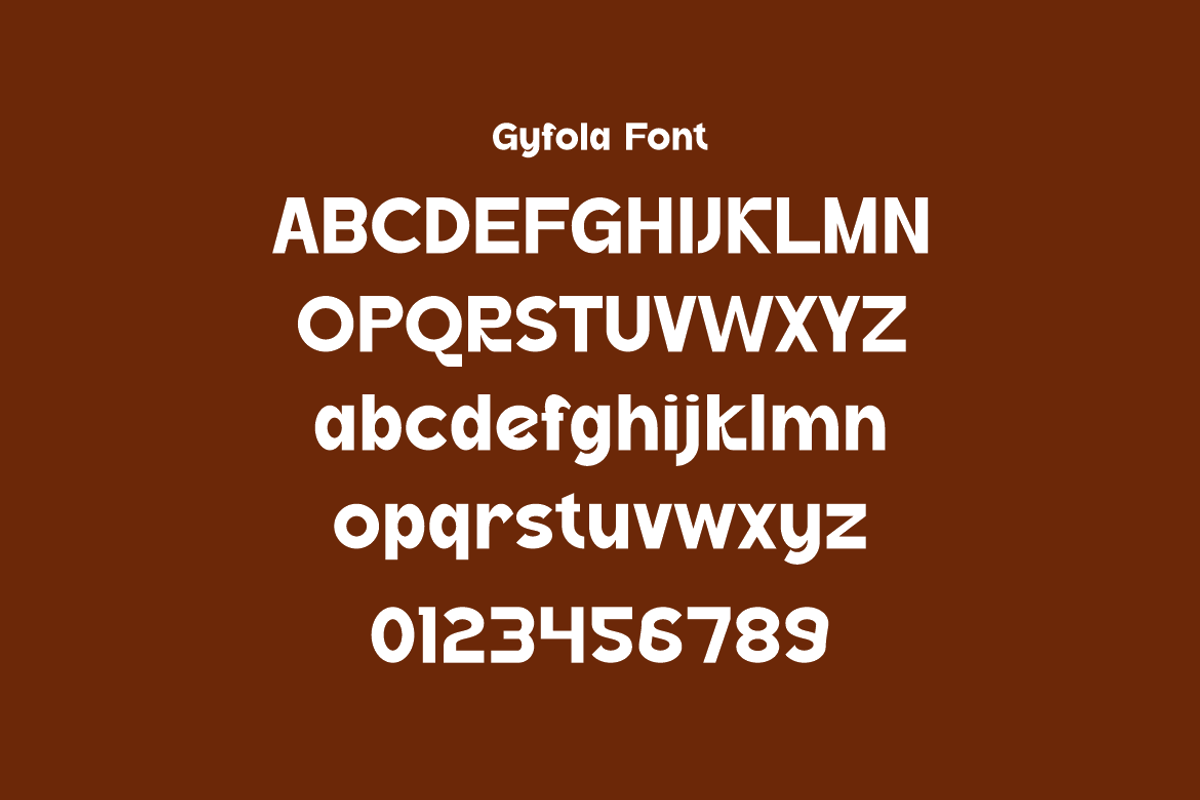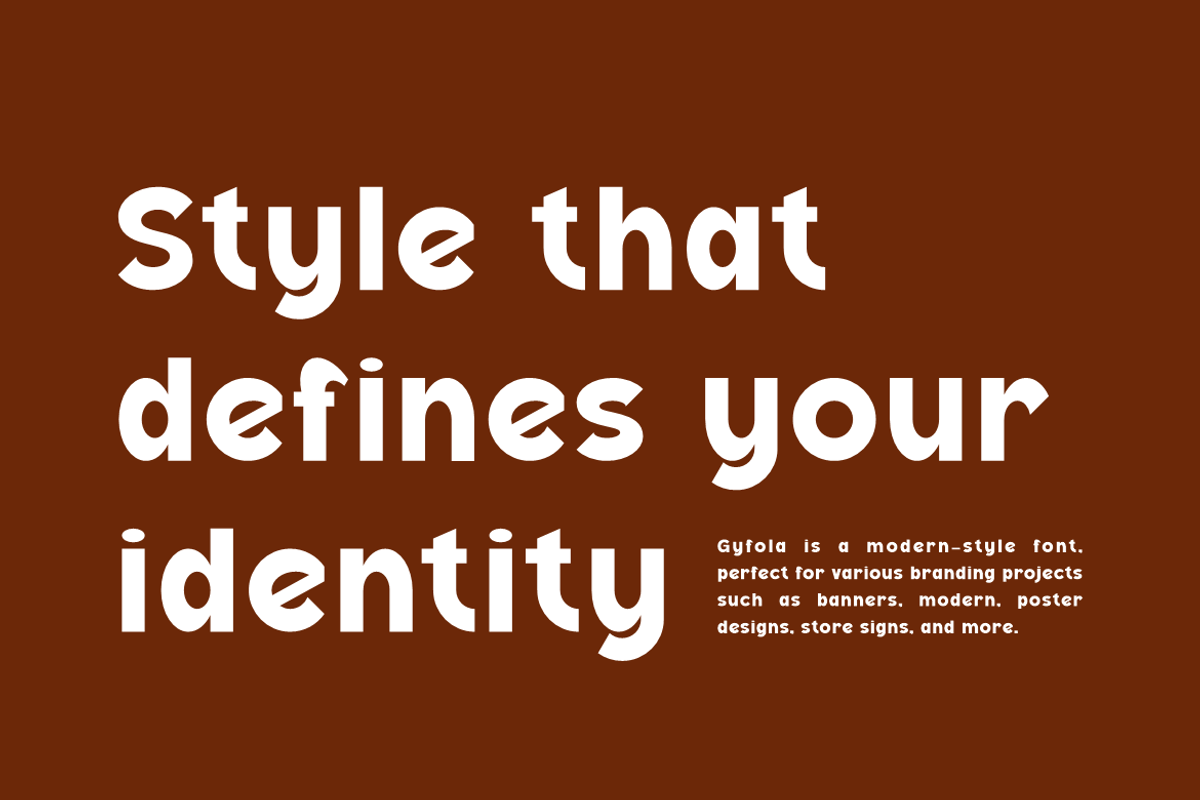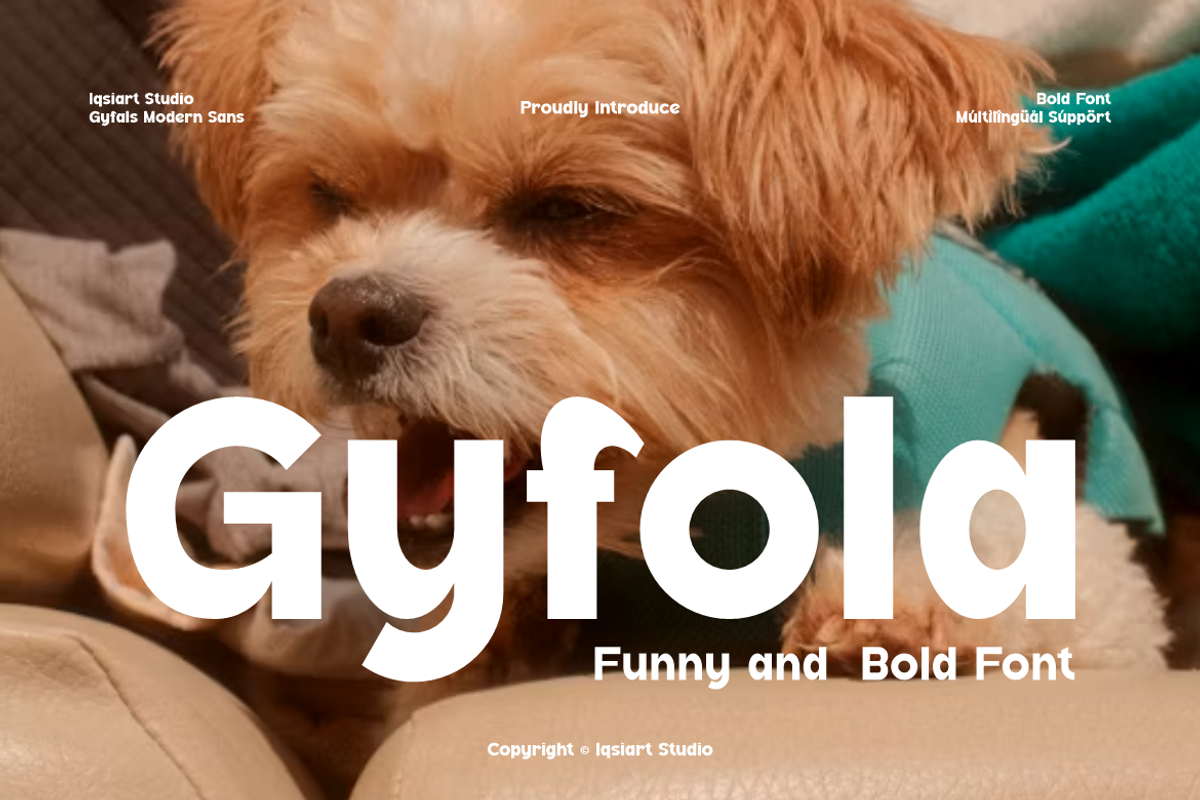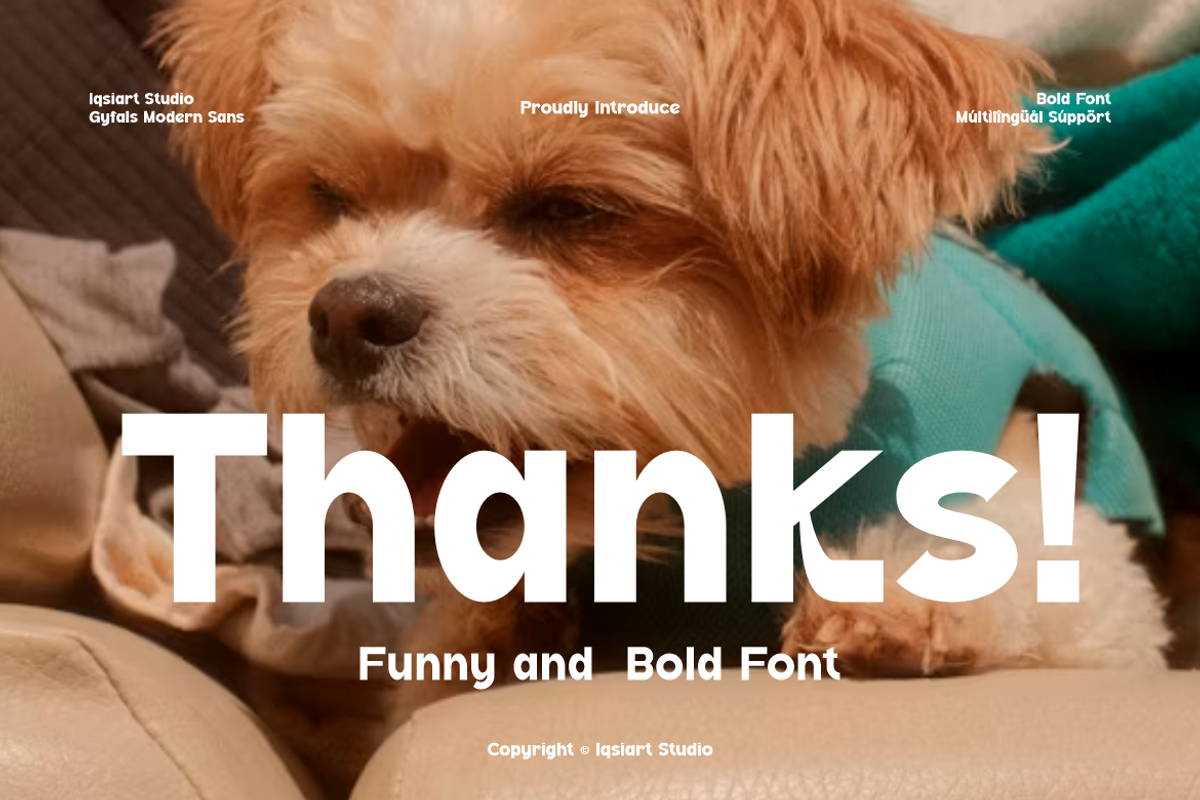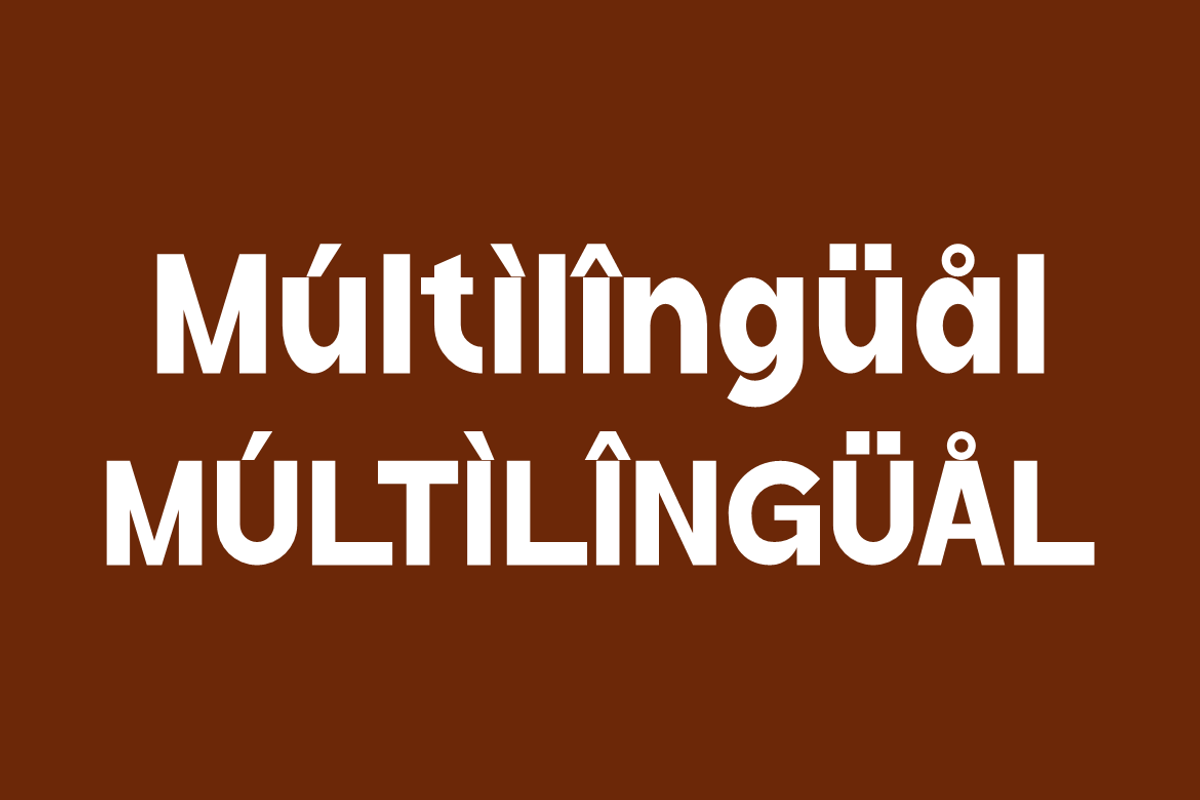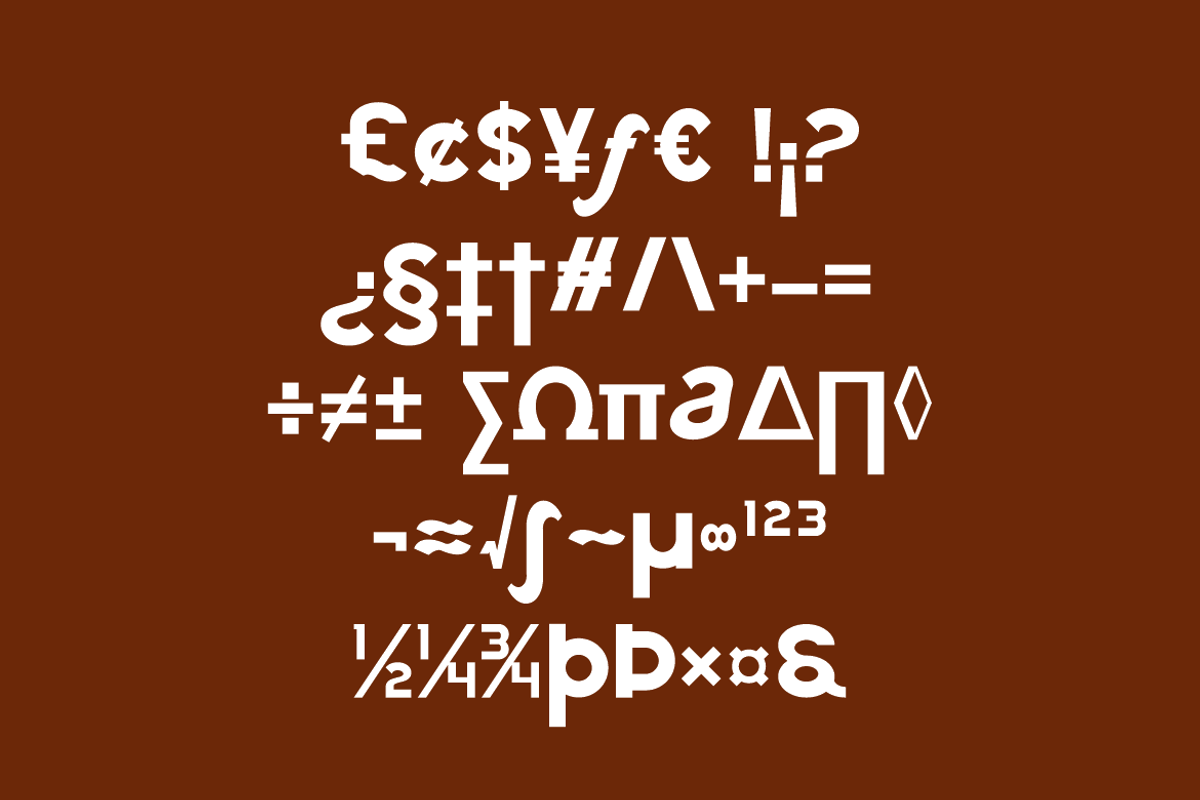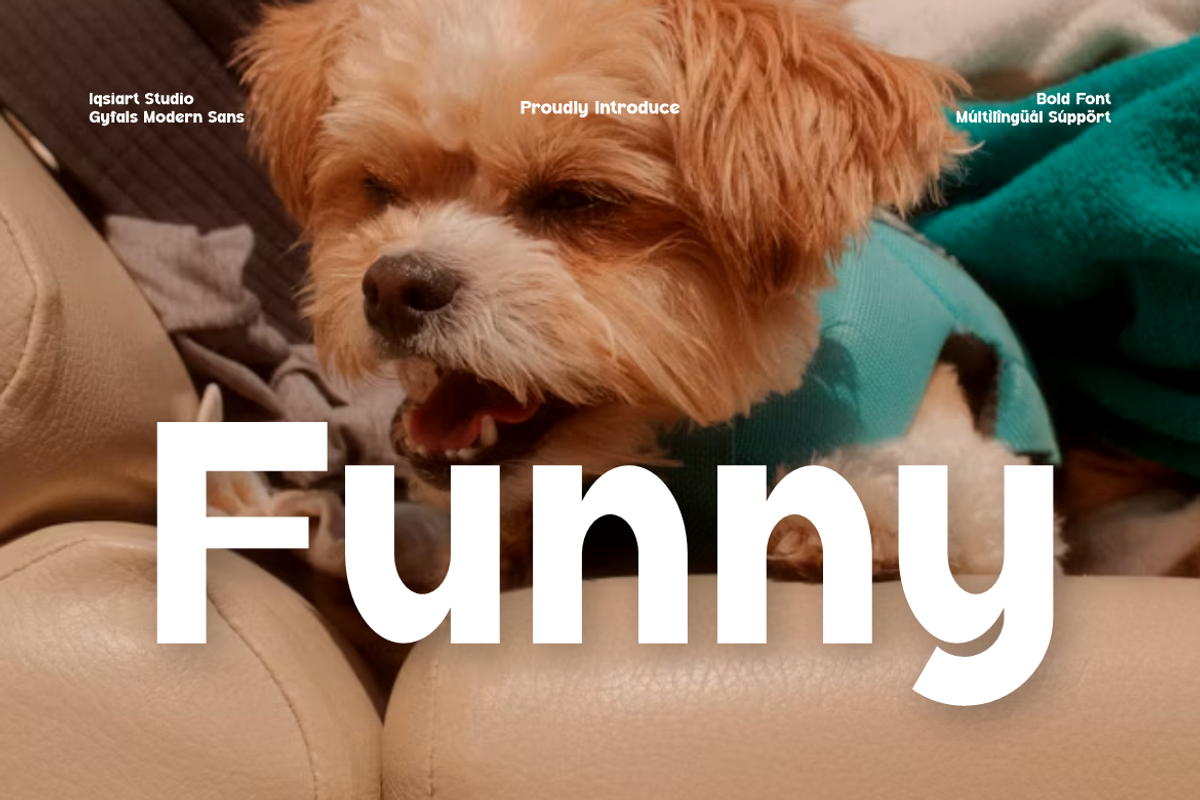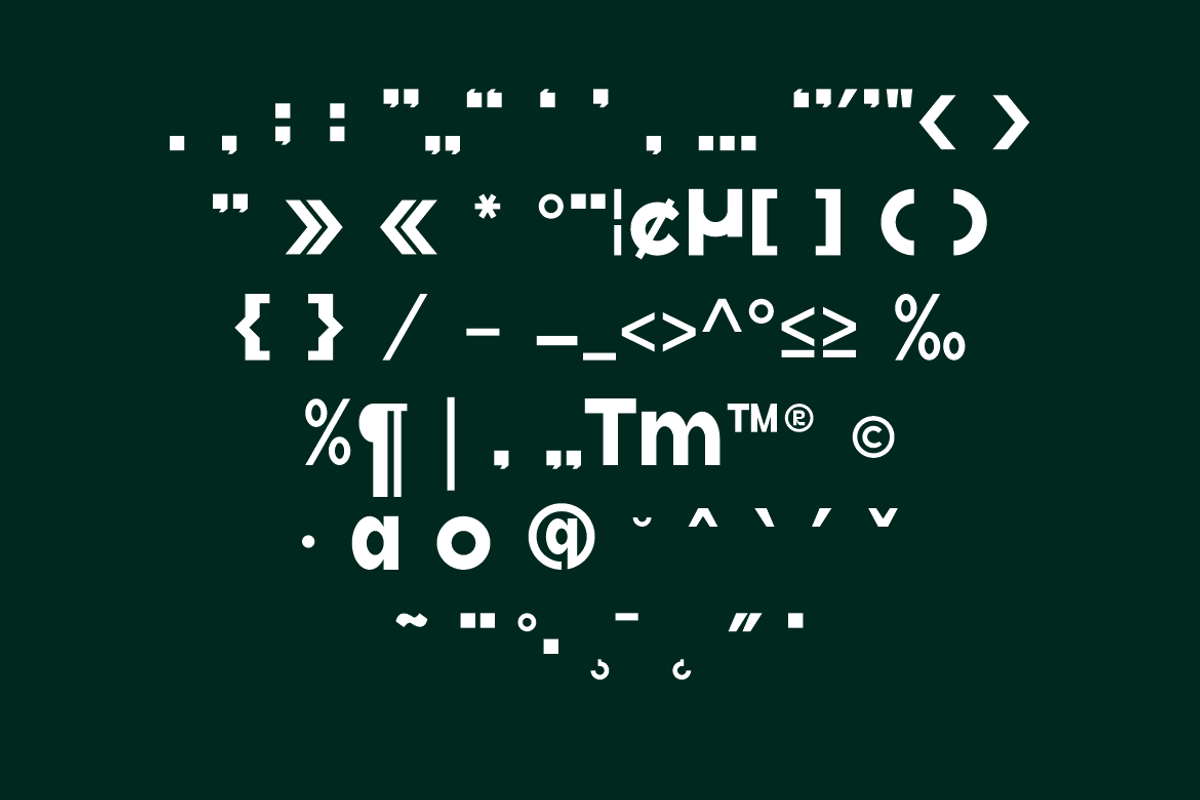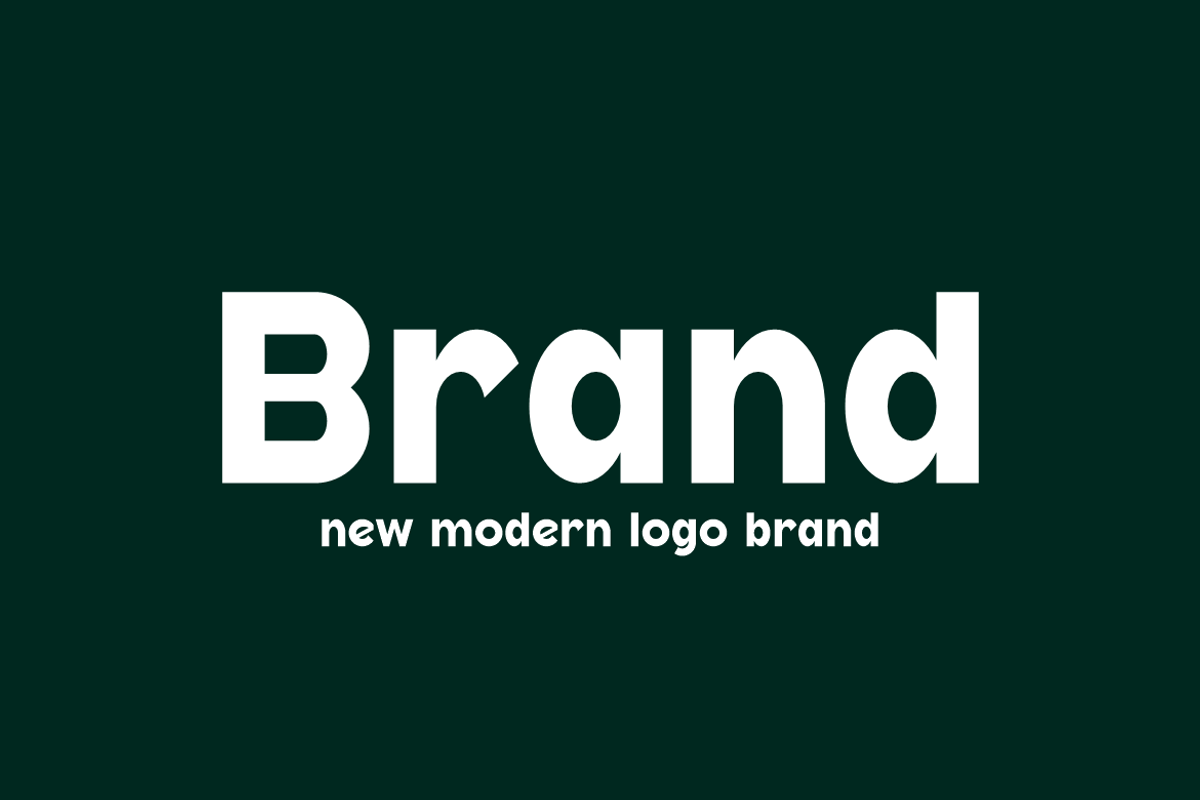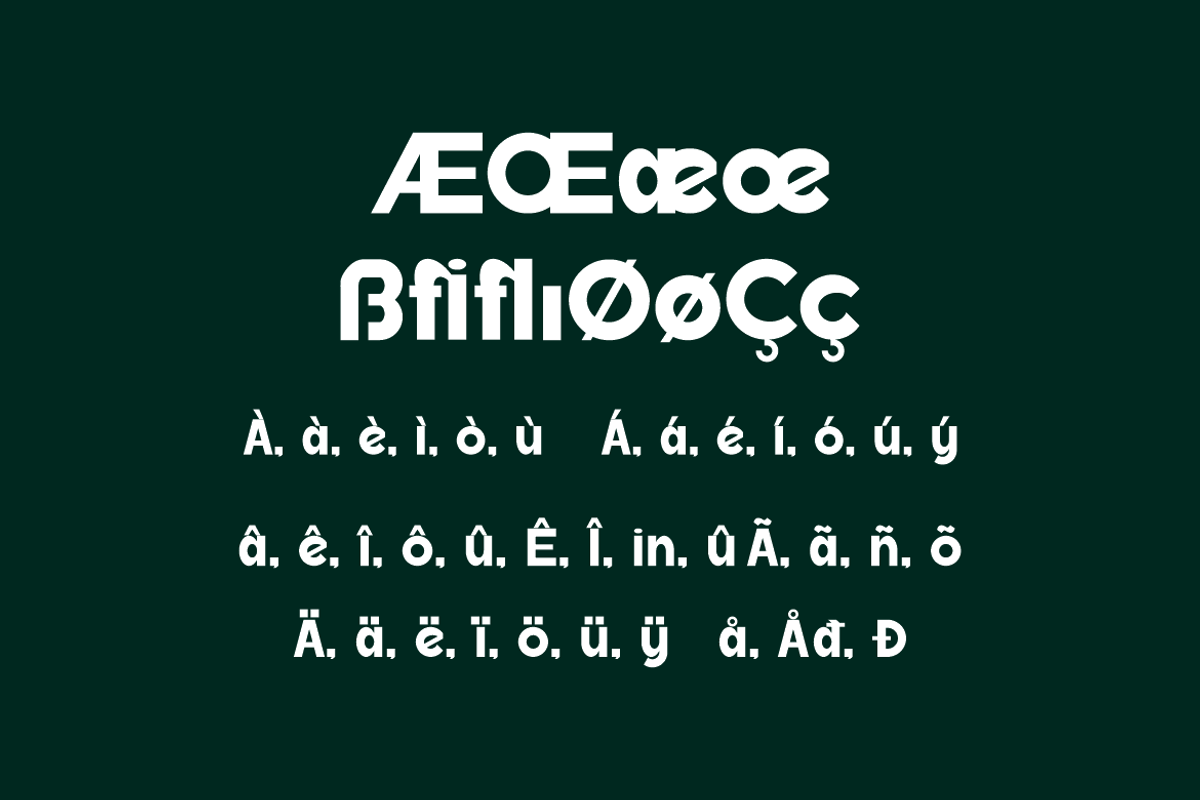
Gyfola - Cute & Funny Font
Gyfola Font is a bold and authentic display typeface
that suits a variety of design needs. We offer a wide range of themes